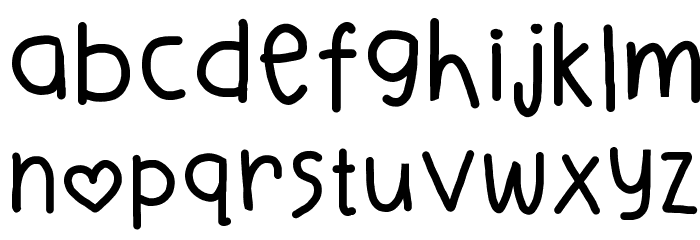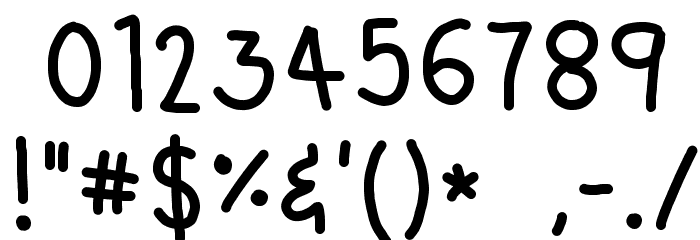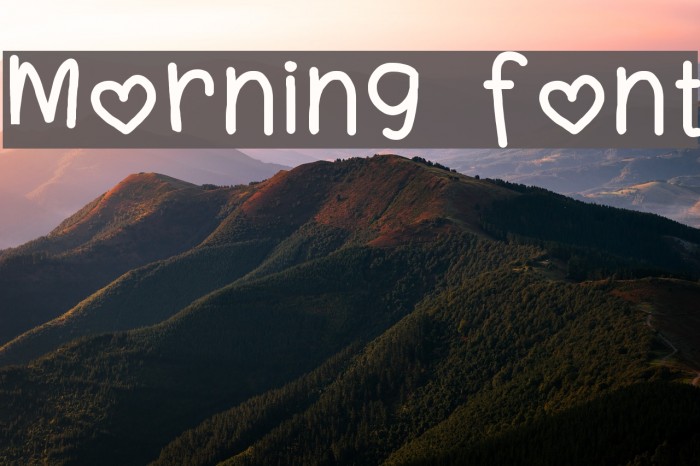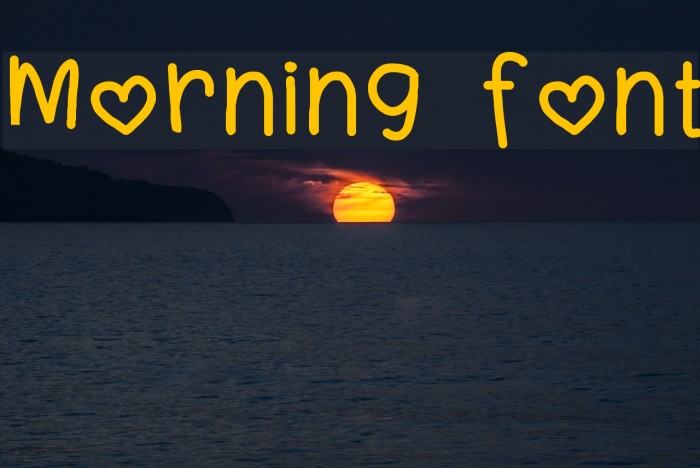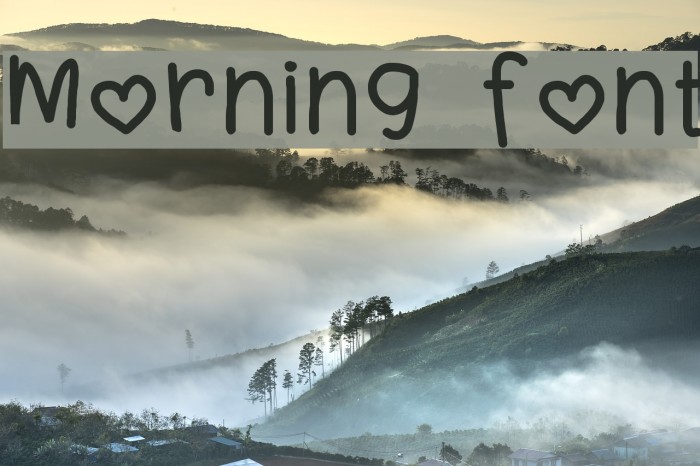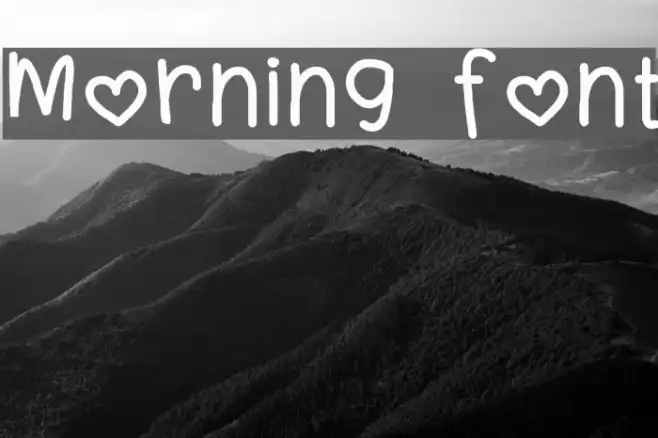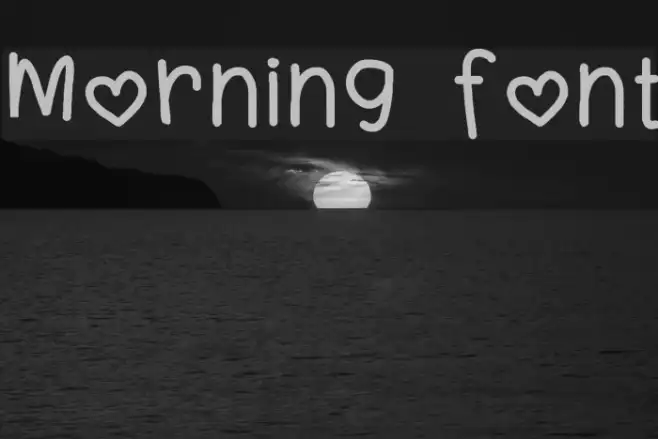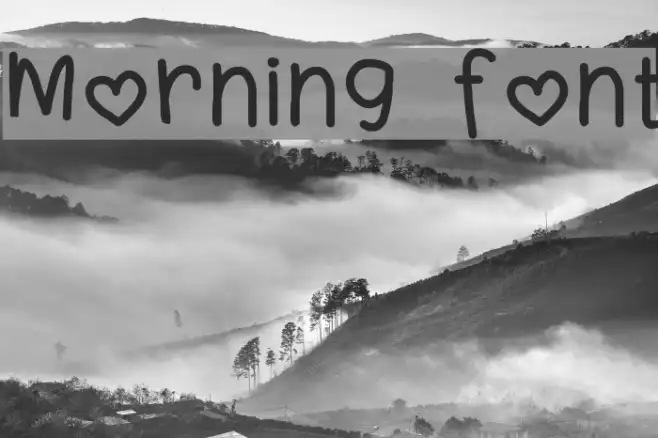
Morning Font Font
This playful and whimsical font features a handwritten style with a casual and friendly appearance. The characters are rounded and slightly irregular, giving them a charming and approachable feel. The uppercase and lowercase letters maintain a consistent style, with some unique touches such as the heart-shaped 'o' in the lowercase set. The numbers and special characters are designed to match the overall aesthetic, ensuring a cohesive look across all text. This font is perfect for projects that require a personal touch, such as greeting cards, children's books, or playful branding.
A playful, handwritten font with a whimsical and friendly style.
- Proposed Projects: Ideal for greeting cards, children's books, playful branding, and casual invitations.
- Overall Style: Whimsical
- Use Case: Logos, Headlines, Informal text